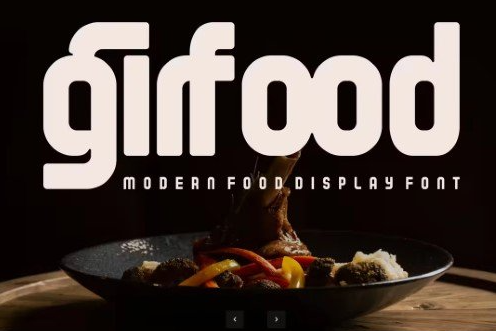
Girfood Sans Serif Food Shop Font
Introducing our new product Girfood Font – Modern Font Girfood Font- Modern Font is a bold and authentic display font. The font is suitable for any branding project like logo, esport, and many more. outstanding in a wide range of contexts. availlable otf ttf Uppercase Lowercase Discretionary